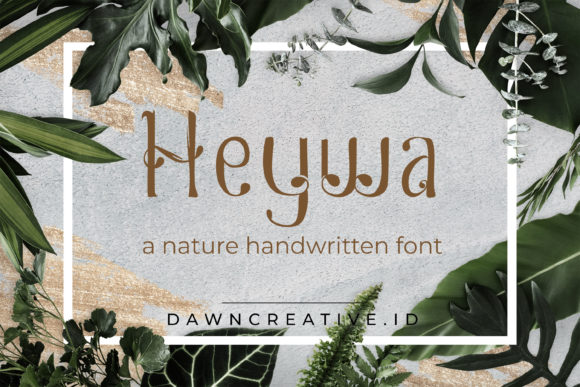
Heywa Font
Heywa Font: A Typographic Masterpiece for Extraordinary Designs
Step into the enchanting world of Heywa, an extraordinary display font that will ignite your creativity and elevate your designs to new heights. Crafted by the visionary Dawn Studio, Heywa is a captivating blend of modern and vintage aesthetics.
Embark on a typographic journey where sharp, geometric lines intertwine with exquisite ornamental flourishes. Each letterform is a masterpiece, imbued with intricate details that dance across the page. With Heywa, you possess the power to create designs that evoke a sense of timeless elegance and intrigue.
Heywa's versatility knows no bounds. Whether you seek to create eye-catching headlines, compelling posters, or mesmerizing social media graphics, this font will effortlessly transform your words into works of art. Its unique charm lends itself to a world of possibilities, from experimental typography to vintage-inspired branding.
Unlock the potential of Heywa for your experimental projects, where imagination reigns supreme. Let its whimsical ornaments add a touch of enchantment to invitations, greeting cards, and wedding stationery. Your creations will become cherished mementos, treasured for their unique and unforgettable style.
Experience the transformative power of Heywa. Download it today and witness the magic unfold as your designs take on a life of their own. Let Heywa guide you into a realm of exceptional typography, where every letter carries the weight of meaning and every word becomes a captivating masterpiece.